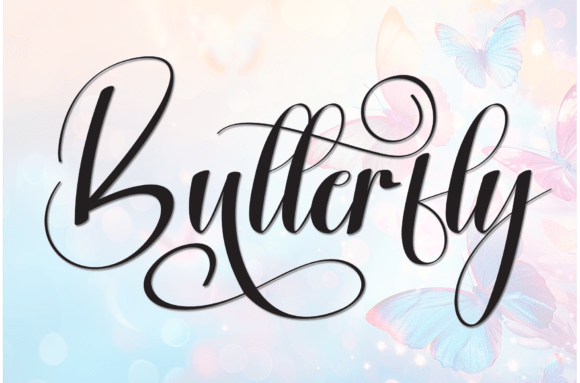
The Magic of Butterfly Font: Elevating Designs with Elegance and Creativity
I still remember the design project that led me to discover the Butterfly font. I was working on a branding project for a luxury wedding planner, and I needed a font that would capture the essence of elegance and sophistication. After hours of scrolling through font libraries, I stumbled upon Butterfly, and it was love at first sight! ✨ The flowing strokes, the graceful curves, and the expressive letterforms instantly resonated with my design vision.
An Honest Review of Butterfly Font
- ✨ Modern elegance: Butterfly font exudes a sense of contemporary sophistication, making it perfect for high-end designs.
- ✅ Versatility: This font is incredibly versatile, suitable for logos, invitations, packaging, and social media graphics.
- 💫 Expressive letterforms: The font’s unique letterforms add a touch of personality to any design.
- 🌈 Colorful possibilities: The font’s clean lines and elegant curves make it perfect for use with a variety of colors and textures.
- 🤔 Limited use in body text: While Butterfly font is stunning for headings and titles, it may not be the best choice for body text due to its script nature.
- ⚠️ Requires careful pairing: Pairing Butterfly font with other fonts requires careful consideration to maintain visual harmony.
The Backstory of Butterfly Font
Butterfly font was inspired by the beauty of hand-drawn calligraphy and the elegance of modern design. The font’s creator, a talented typographer, aimed to capture the essence of creative expression and sophistication in a single font. With its unique letterforms and flowing strokes, Butterfly font is a testament to the power of typography in design.
| Is Butterfly font suitable for body text? | While Butterfly font is stunning for headings and titles, it’s not recommended for body text due to its script nature and potential readability issues. |
| Are there any OpenType features available in Butterfly font? | Yes, Butterfly font includes OpenType features such as stylistic alternates, ligatures, and glyphs, allowing for creative and customized typography. |